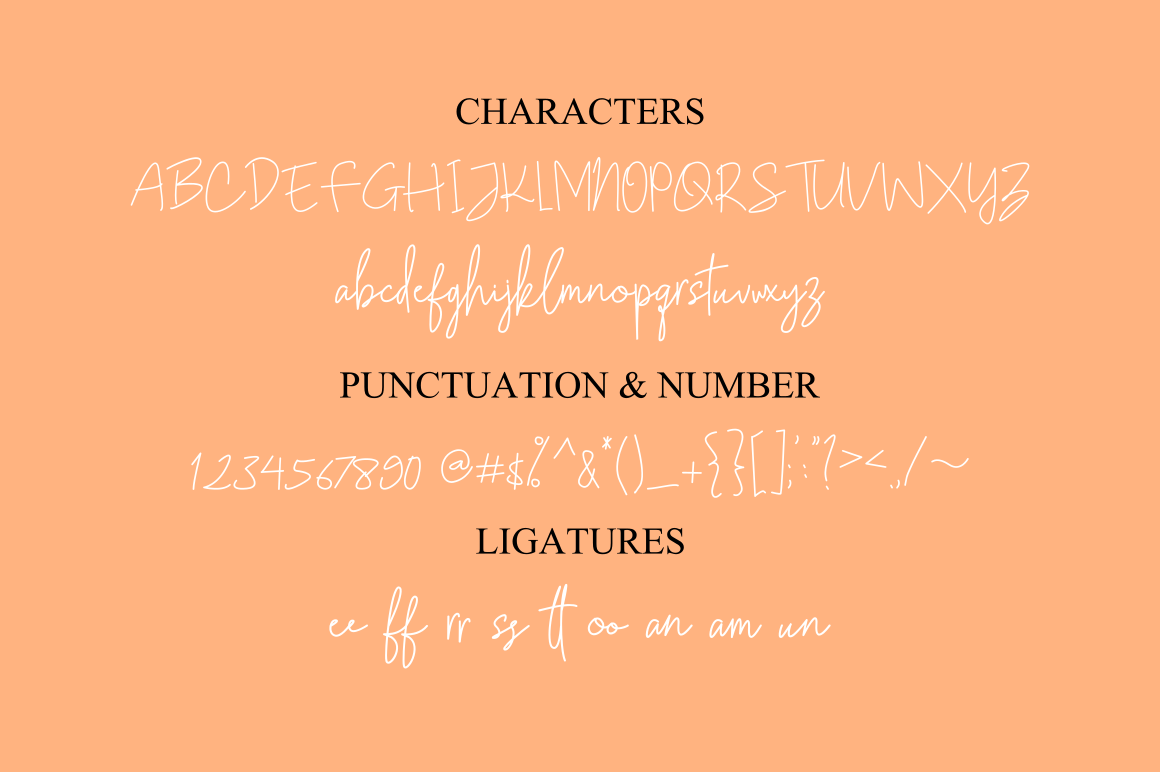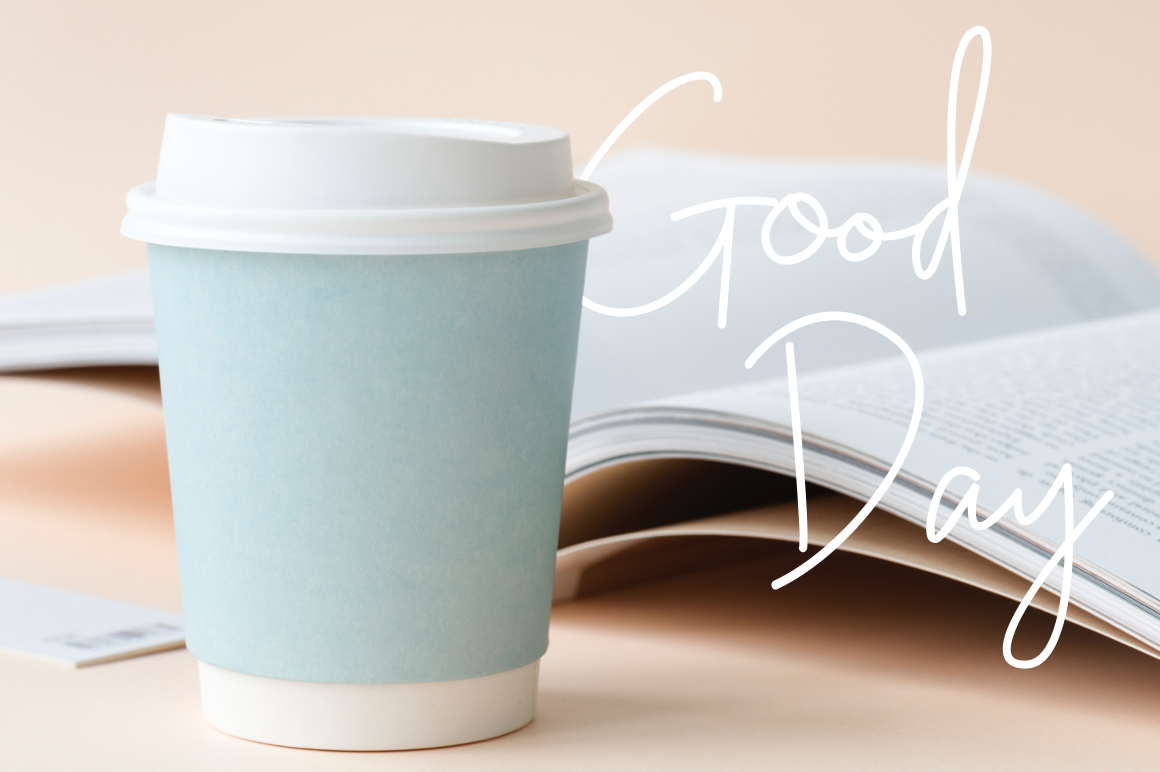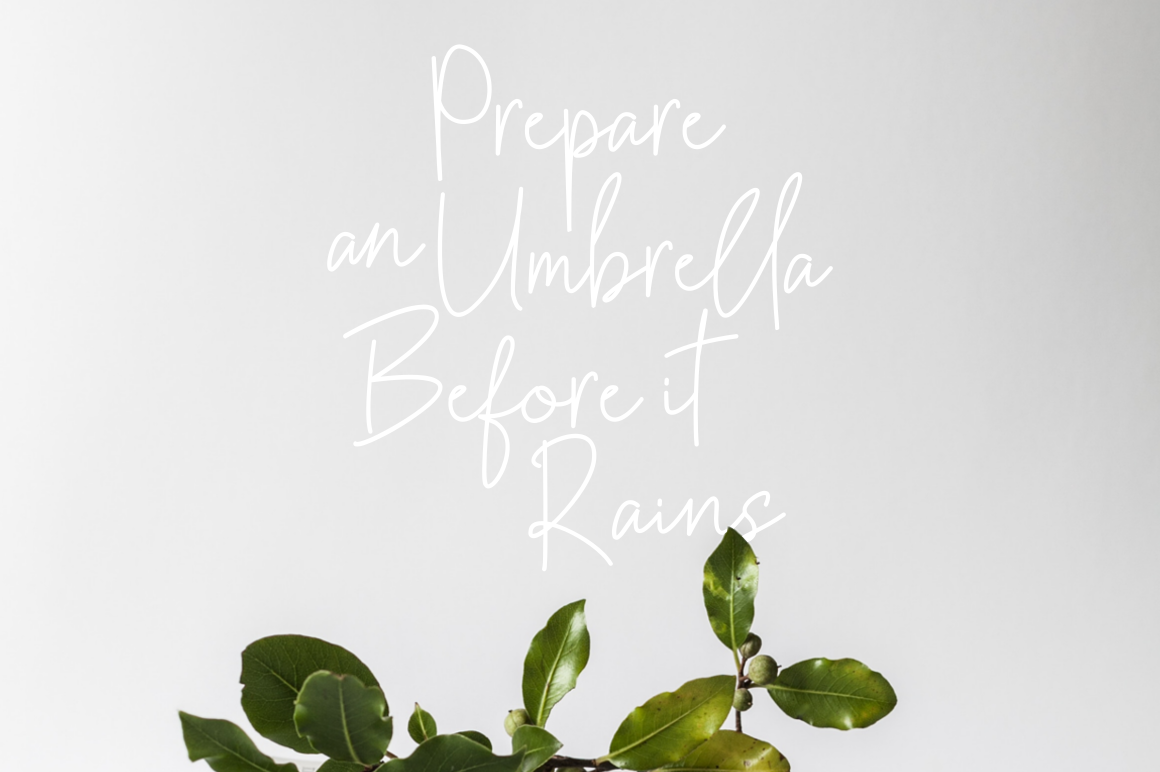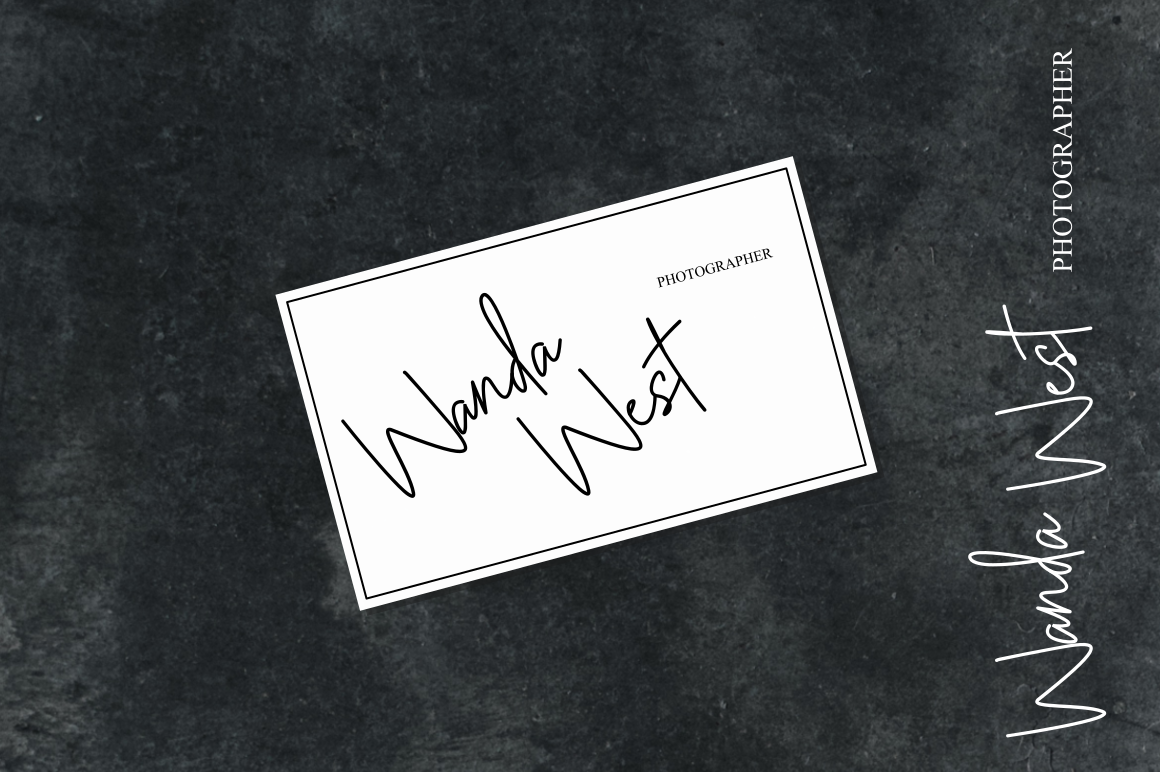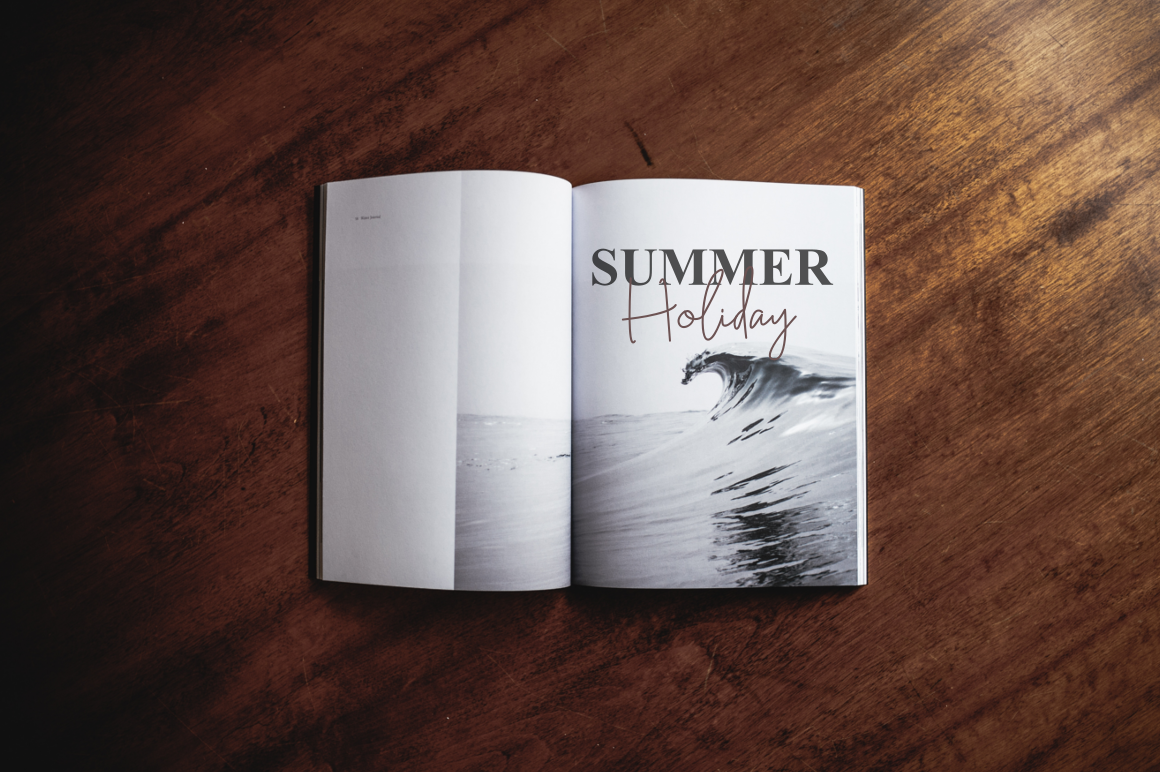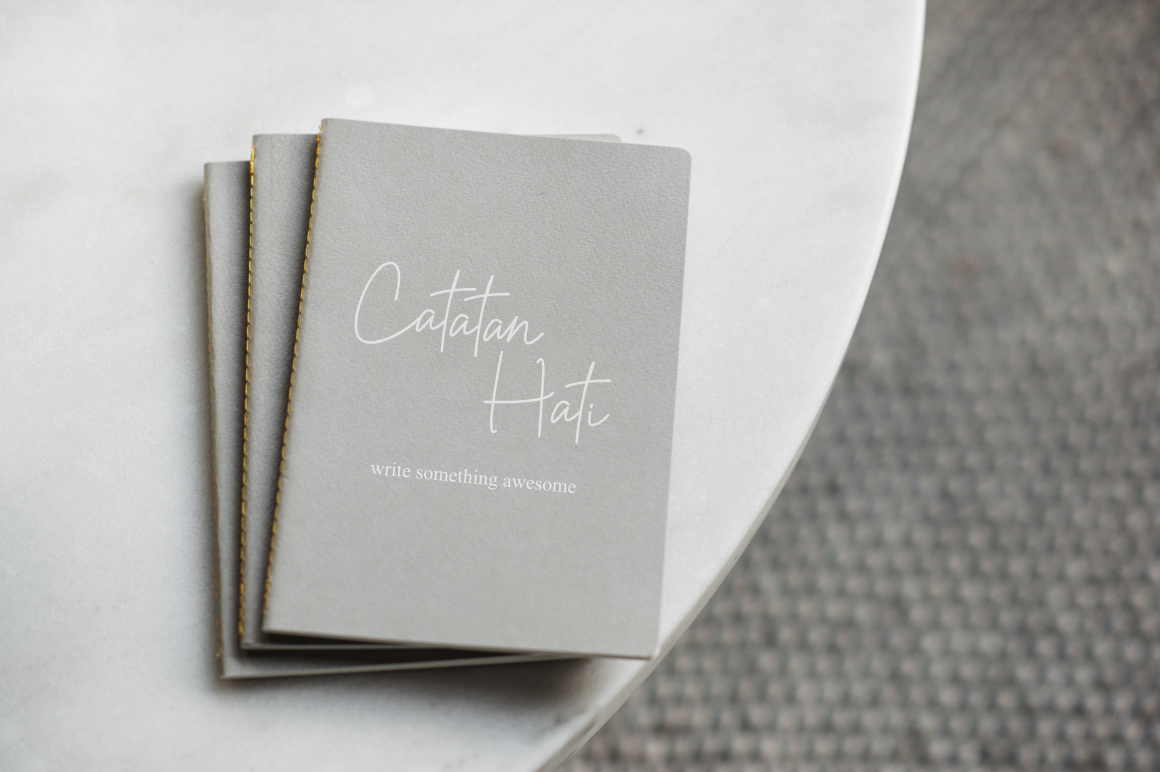
Gunung Pring Font
About Gunung Pring Font
Gunung Pring is a fresh and modern signature font, handmade for an authentic and stunning look. Use this for logotype and headlines for a cool and hip feel.